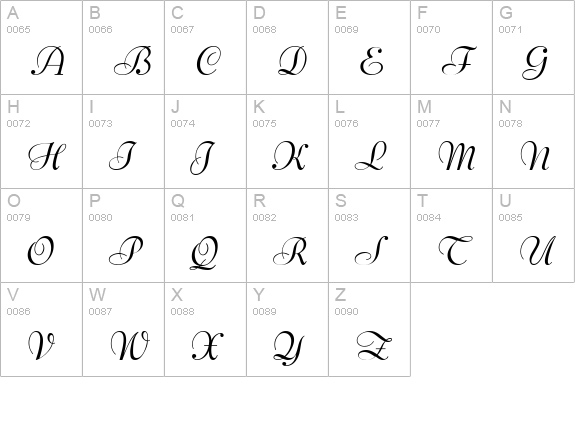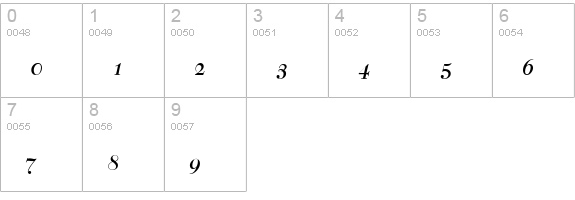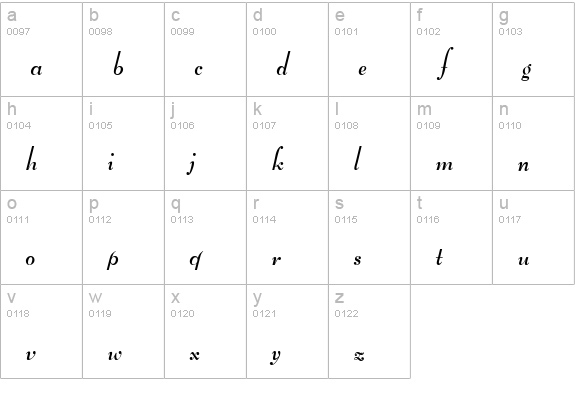
BernhardScript-Bold Font Details
BernhardScript-Bold is a strong, high-contrast variant in the BernhardScript typeface family \xE2\x80\x94 well suited to headlines, attention-grabbing titles, and strong calls-to-action.
BernhardScript-Bold is a stunning and elegant font that exudes sophistication and style. With its bold and commanding presence, this font is perfect for creating eye-catching headlines, titles, and branding materials. The thick strokes and intricate details of BernhardScript-Bold make it a versatile choice for a wide range of design projects. What makes BernhardScript-Bold even more appealing is that it is available for free download at FontsMarket.com. This means that you can easily access this beautiful font and incorporate it into your designs without any cost. Whether you're working on a poster, logo, invitation, or any other creative project, BernhardScript-Bold is sure to make a bold statement and elevate your design to the next level. Download BernhardScript-Bold today and let your creativity shine!